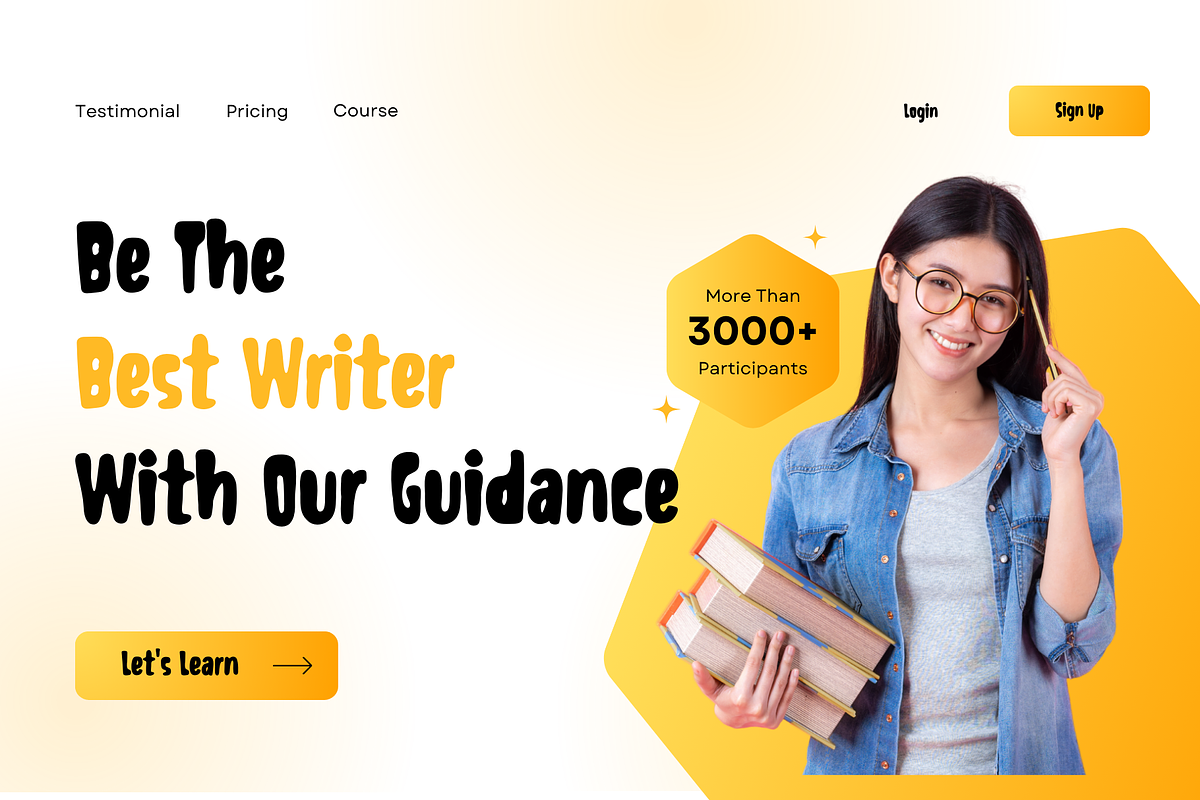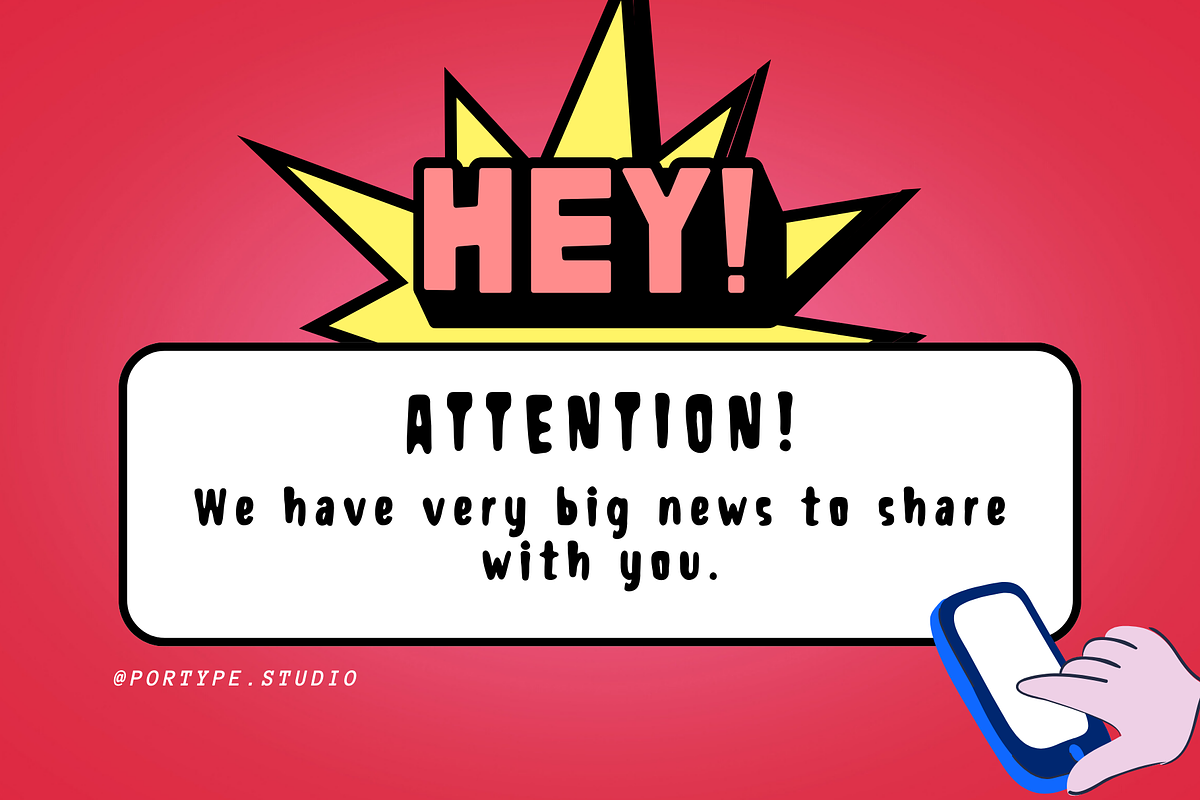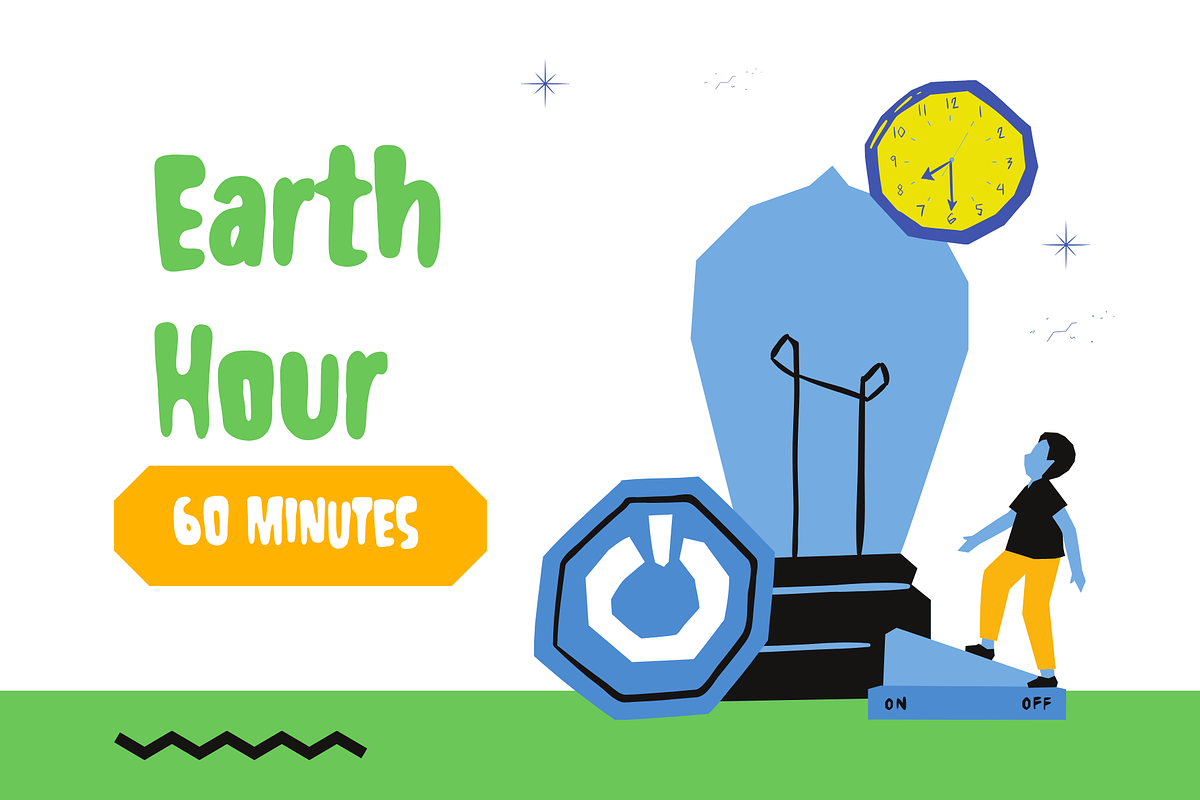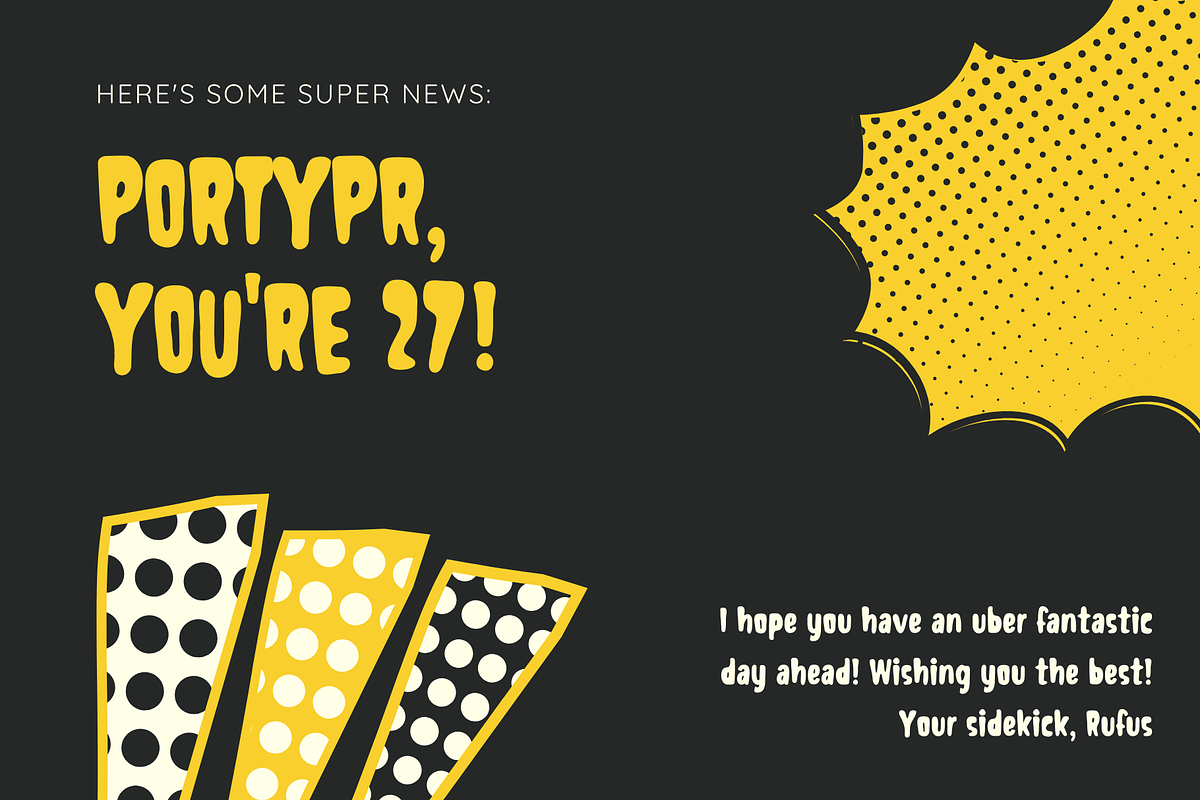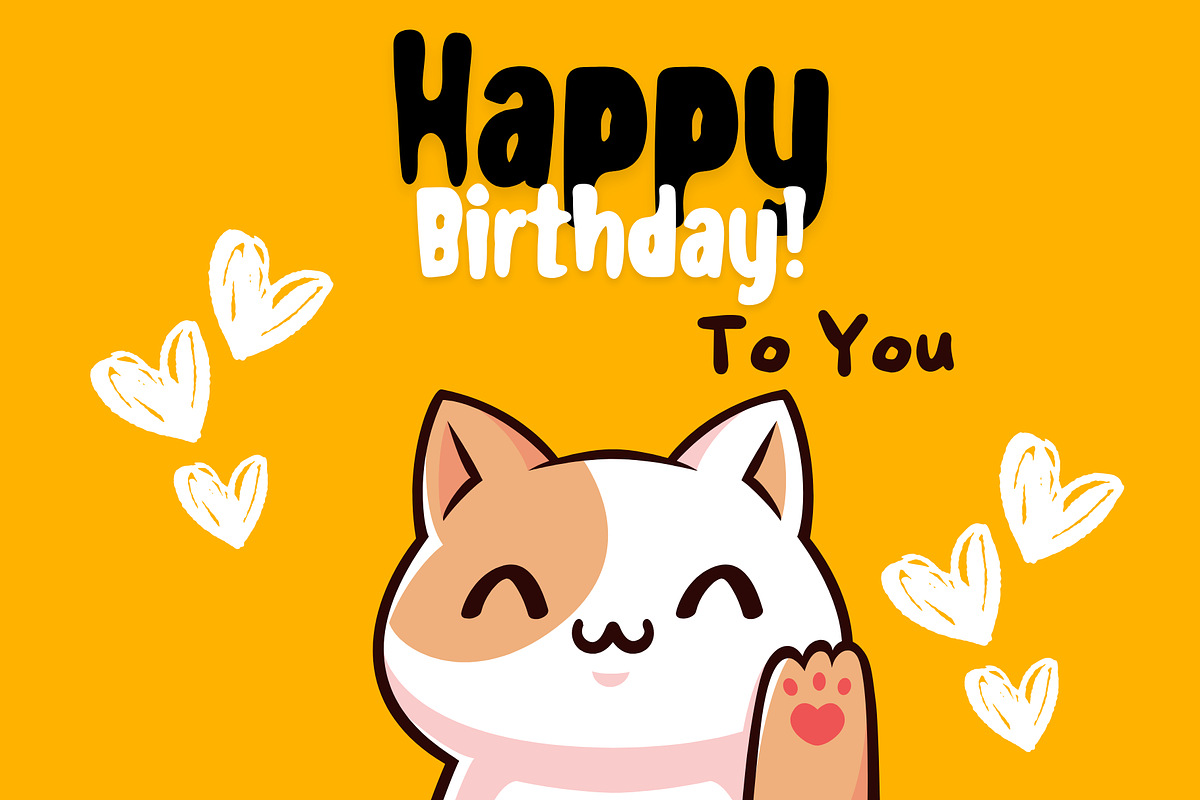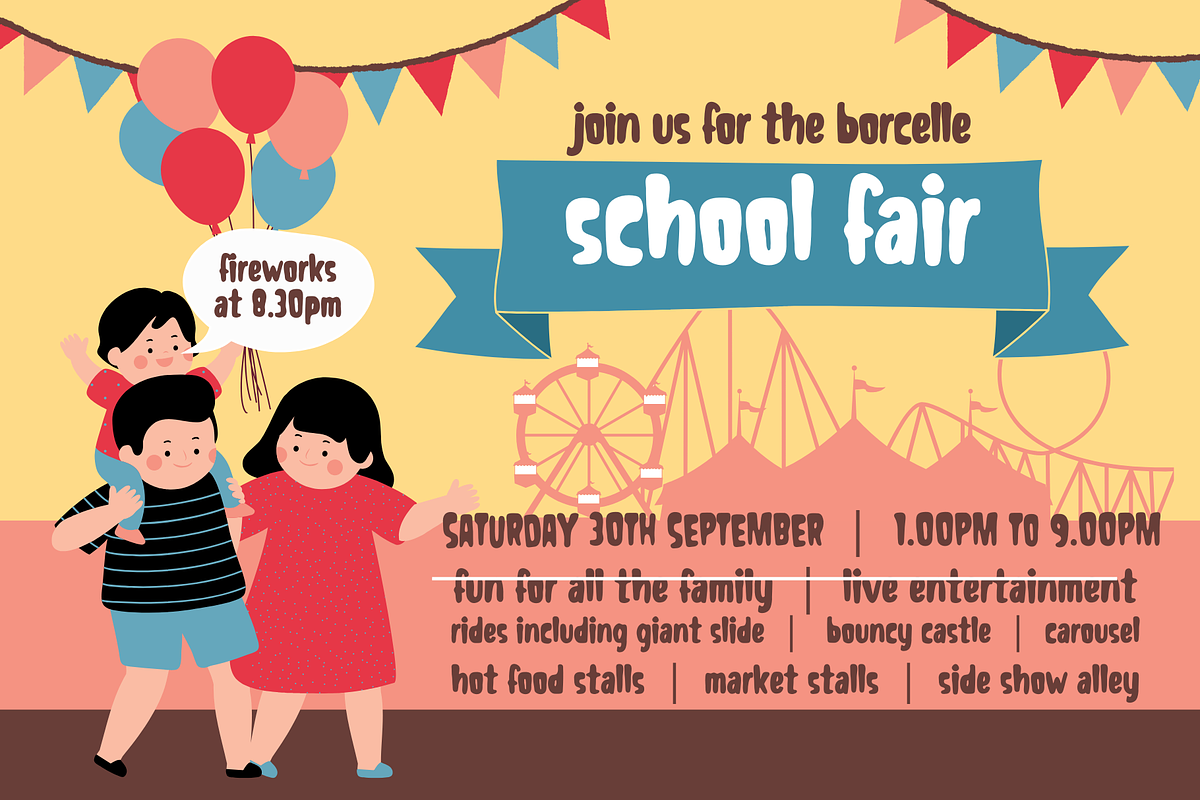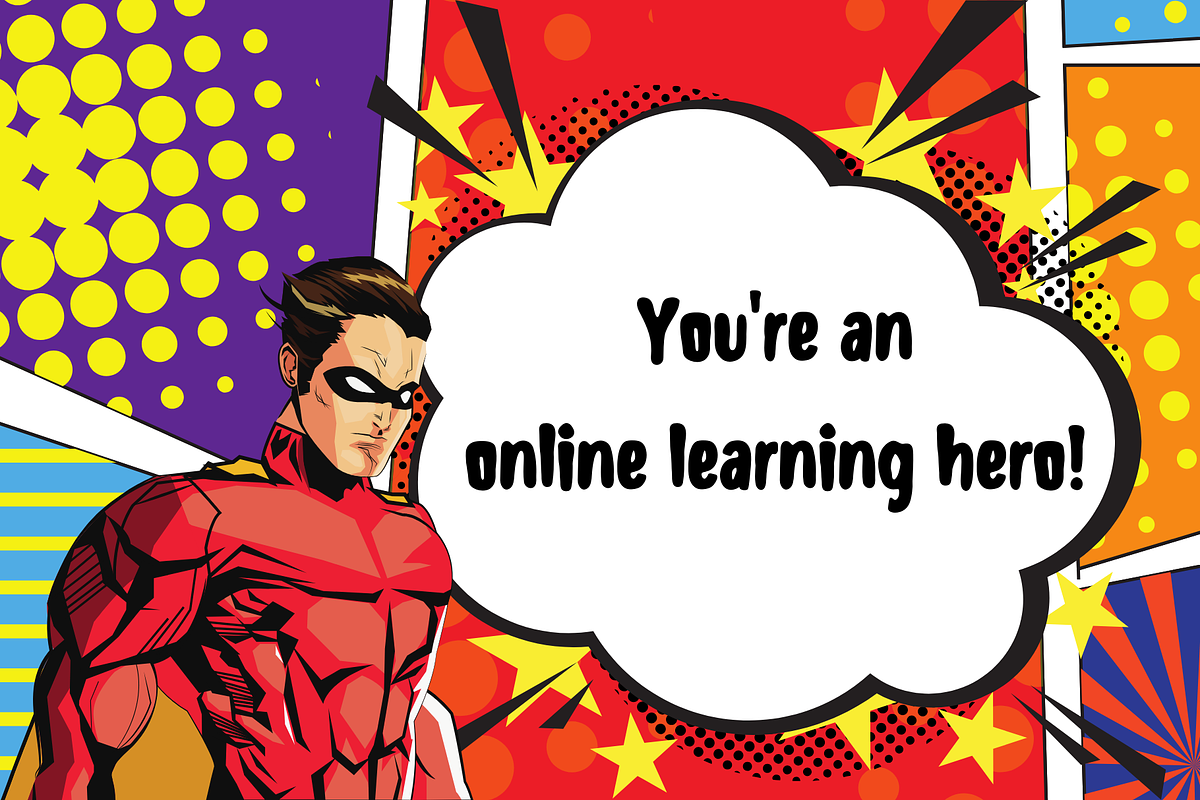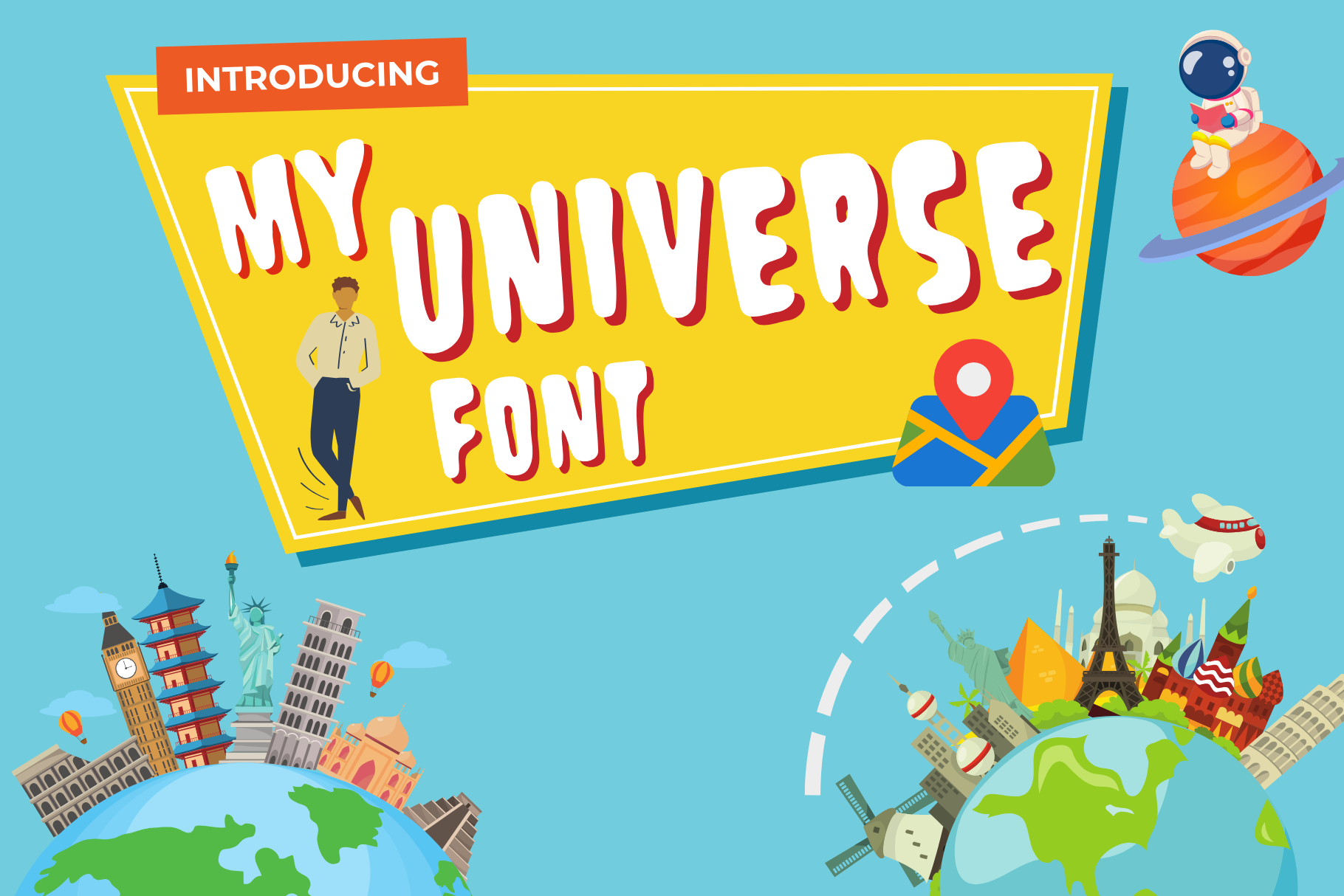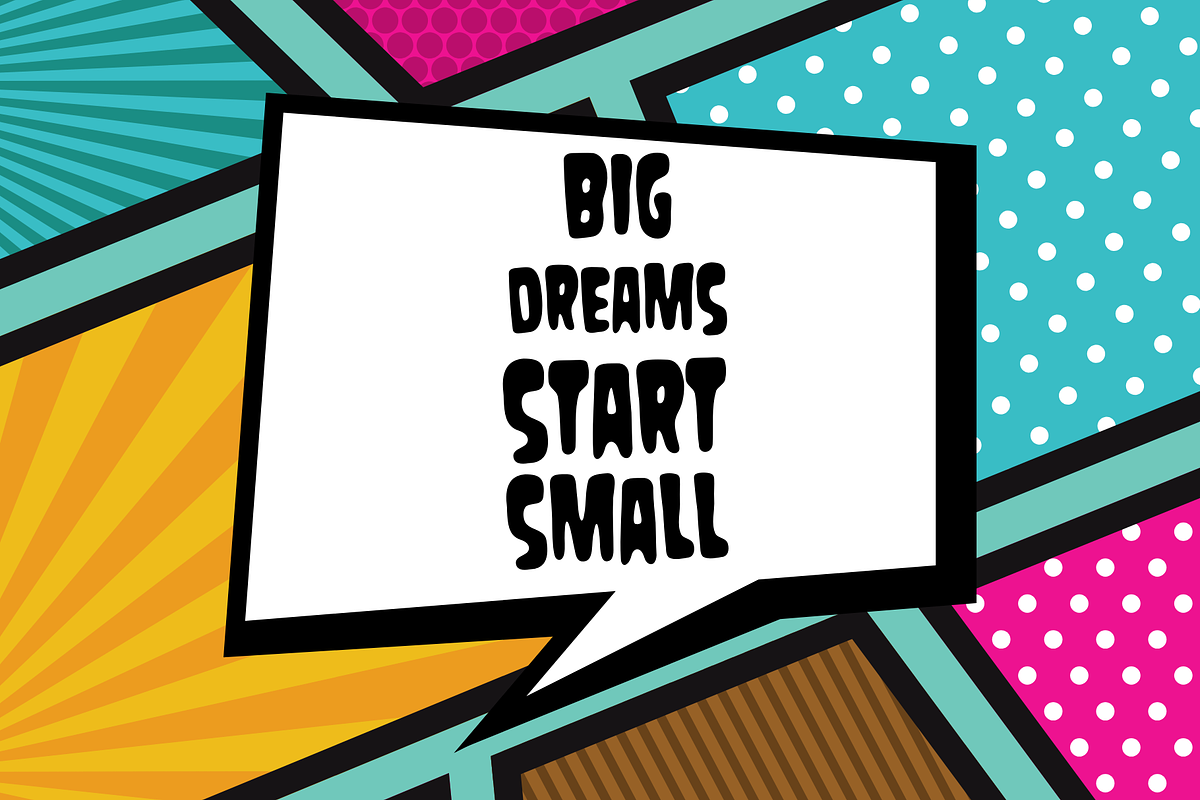
My Universe font
An exuberant and quirky handwriting style tailor-made for comics. With its bold strokes and lively curves, this font bursts with personality, injecting a playful energy into every panel.
Inspired by the dynamism of comic book art, My Universe captivates readers with its vibrant character and expressive flair. Each letter leaps off the page, inviting readers into a world of imagination and adventure.
Whether it's speech bubbles, sound effects, or narrative text, My Universe font brings comic scenes to life with its infectious charm. Its versatility makes it the perfect choice for comic strips, graphic novels, or webcomics, adding a touch of whimsy to every frame.
So, if you're looking to infuse your comics with a dose of fun and originality, look no further than My Universe font. Let your creativity soar as you embark on an exciting visual journey through the playful universe it creates.